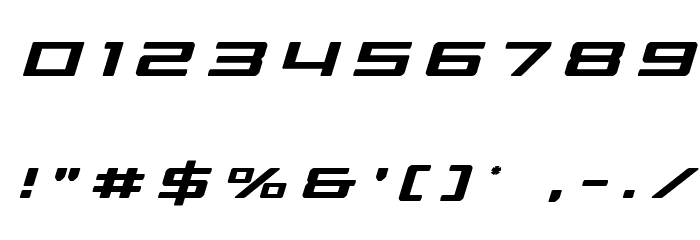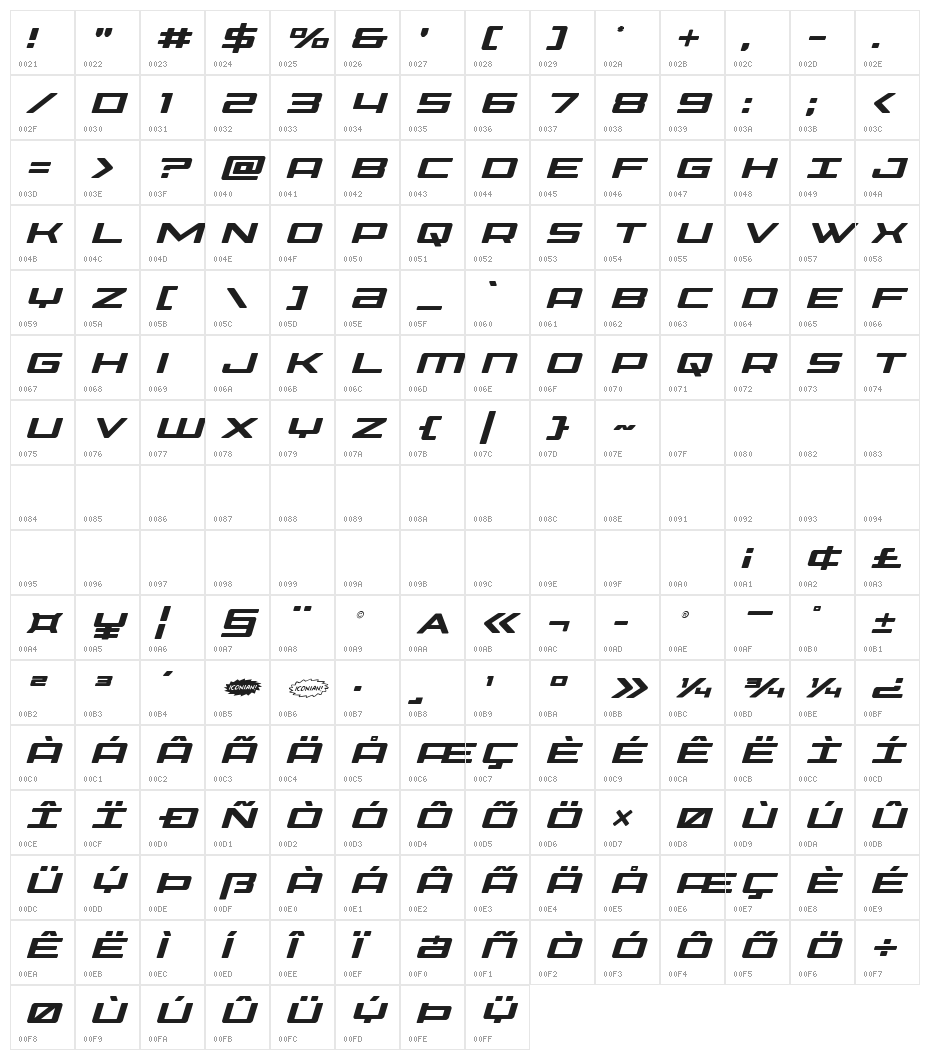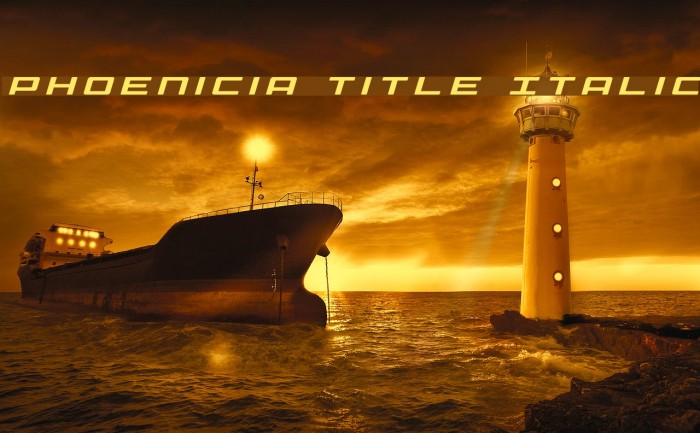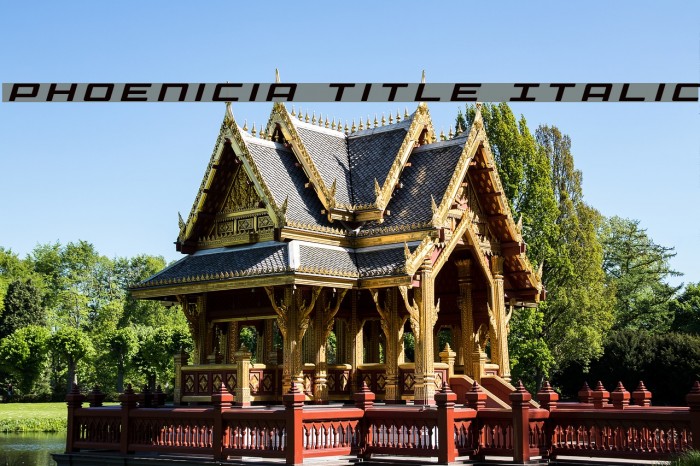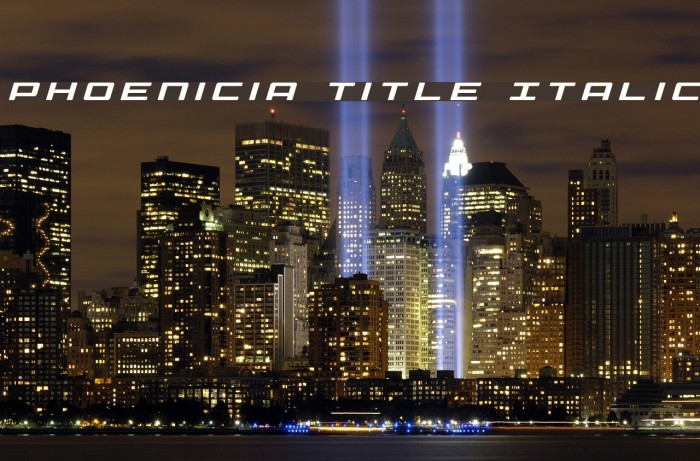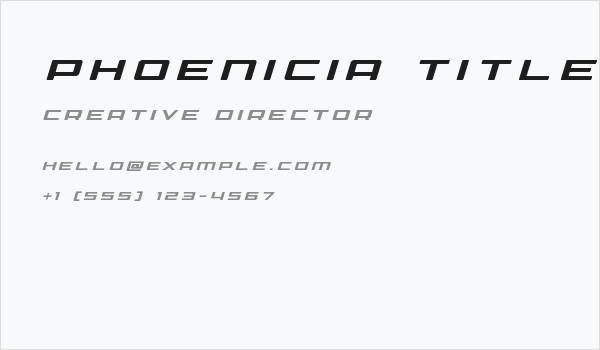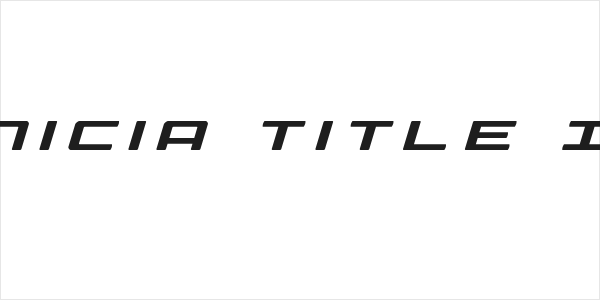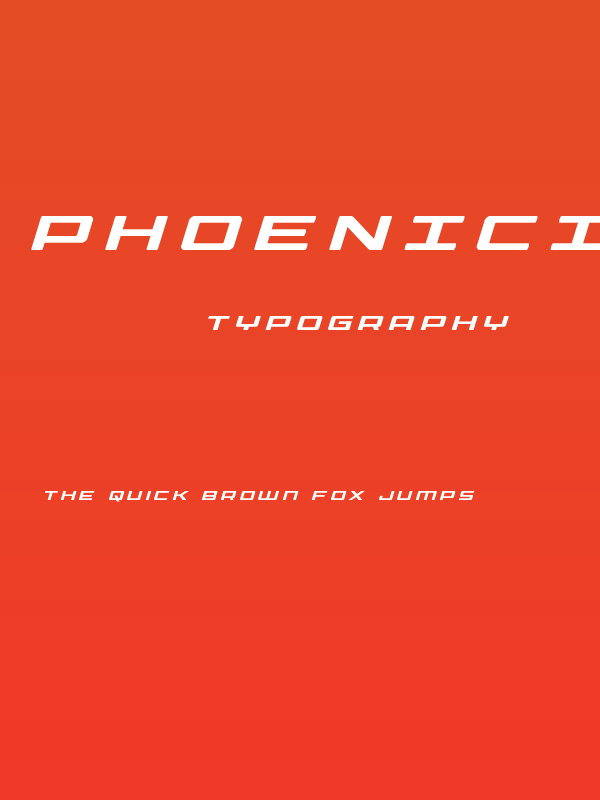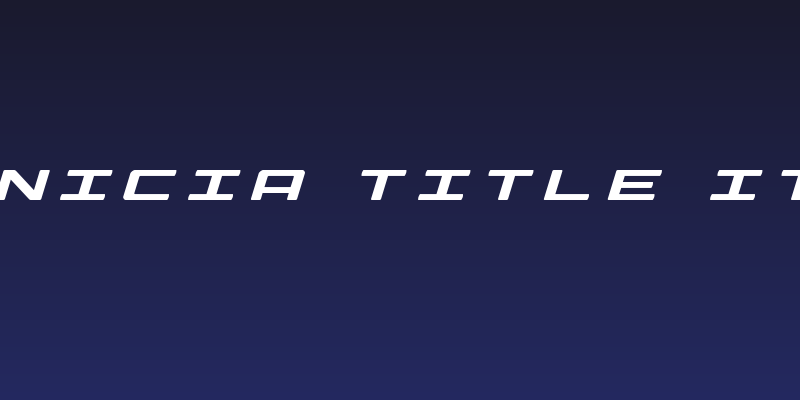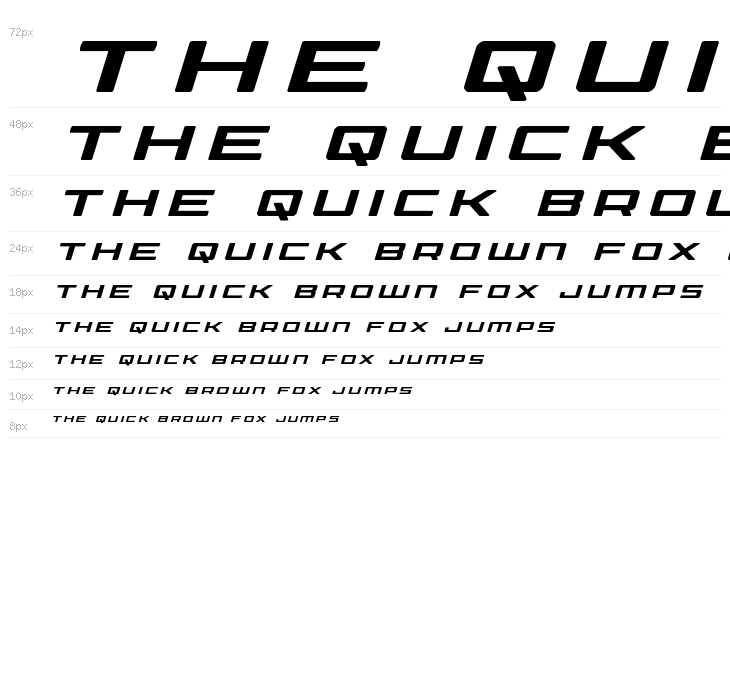
Phoenicia Title Italic Font
Phoenicia Title Italic Description
This font features a sleek and modern design with a distinct italic slant, giving it a dynamic and forward-moving appearance. The characters are constructed with clean, sharp lines and subtle curves, creating a sense of speed and efficiency. The uppercase and lowercase letters maintain a consistent style, while the numerals and special characters complement the overall aesthetic. The font's geometric structure and angular forms make it suitable for contemporary design projects.
| Use Case | Headlines, Logos, Digital media |
| Proposed Projects | Ideal for branding, advertising, and digital media projects that require a modern and energetic look. |